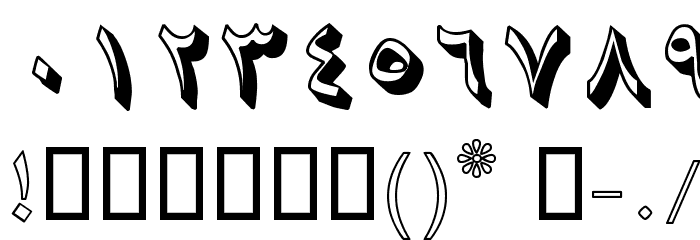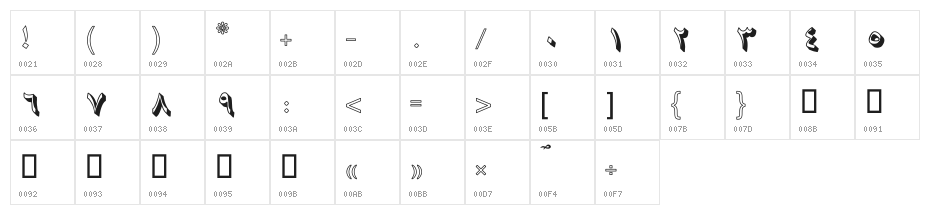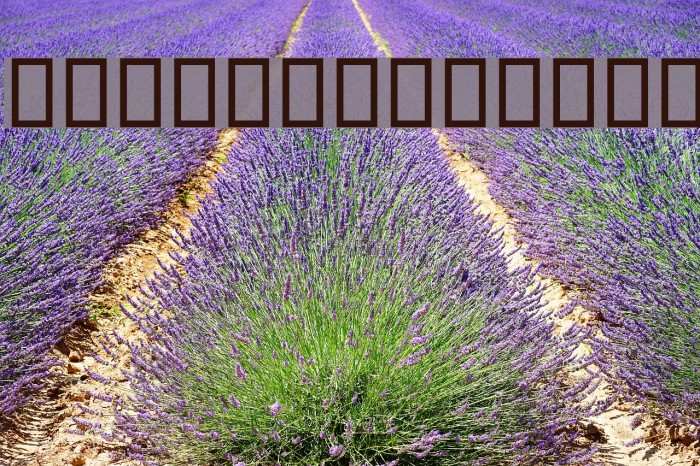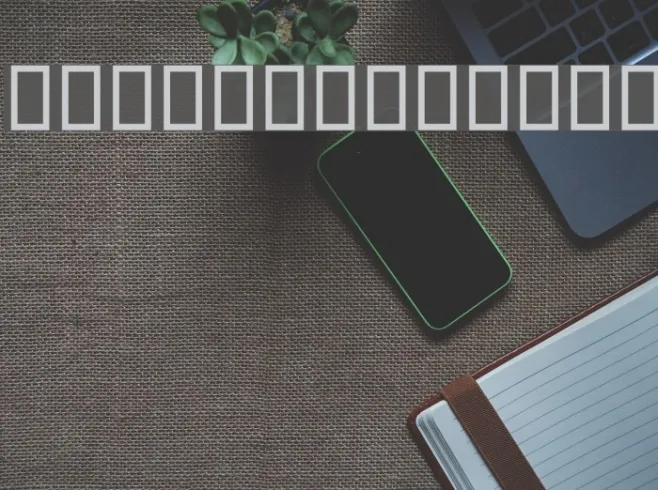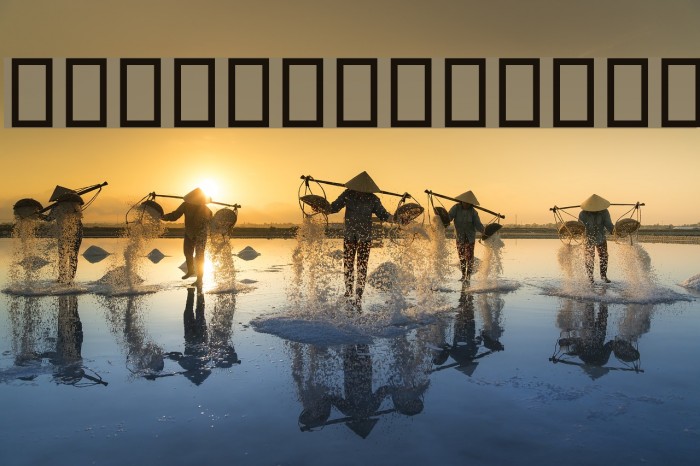
Sols Shadow Font
Sols Shadow Description
This font features a bold, shadowed style that gives each character a three-dimensional appearance. The uppercase and lowercase letters are crafted with a consistent thickness, creating a uniform look across the alphabet. The numbers and special characters maintain this shadow effect, adding depth and visual interest. The font's design is reminiscent of vintage signage or retro posters, making it stand out with its unique aesthetic. The shadow effect is prominent, enhancing the overall visual impact and making it suitable for eye-catching designs.
Overall StyleVintage
Proposed ProjectsIdeal for retro-themed posters, vintage signage, branding, and any design needing a standout, eye-catching font.